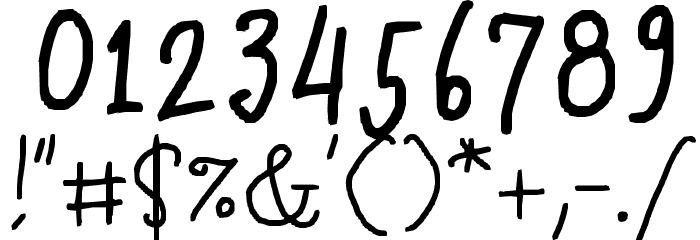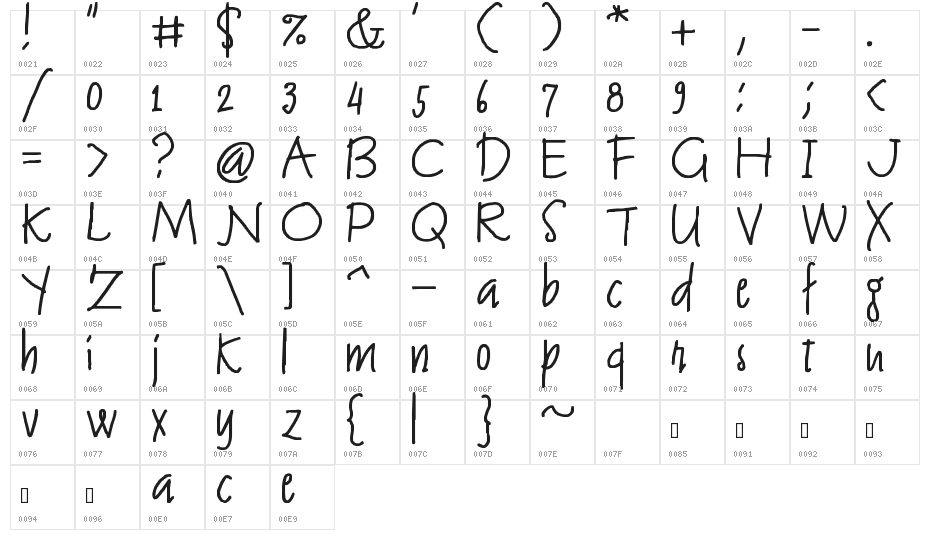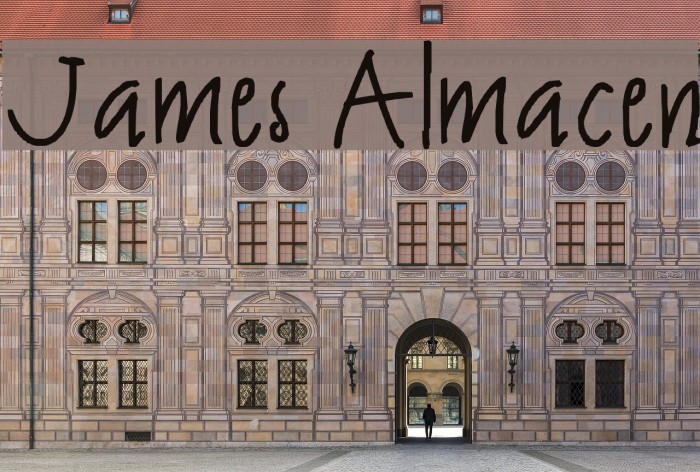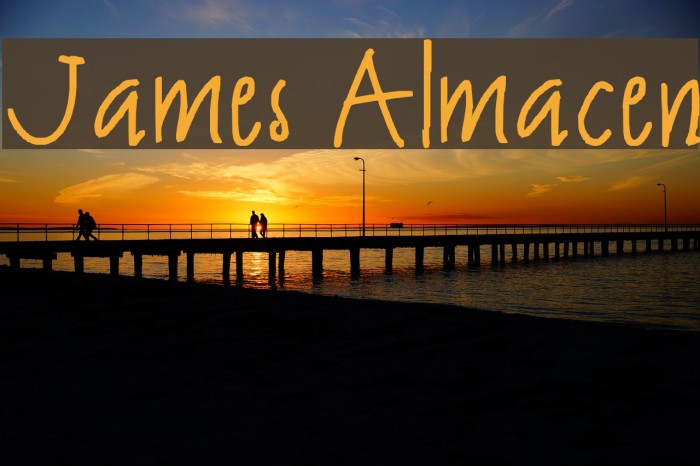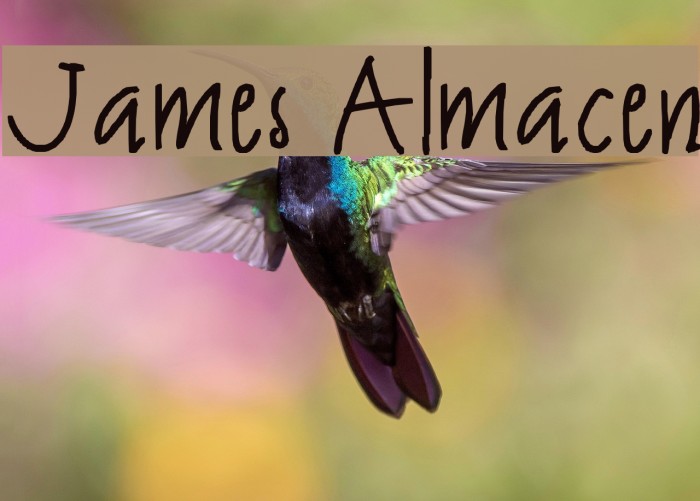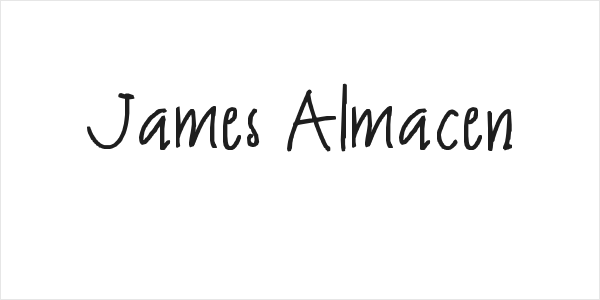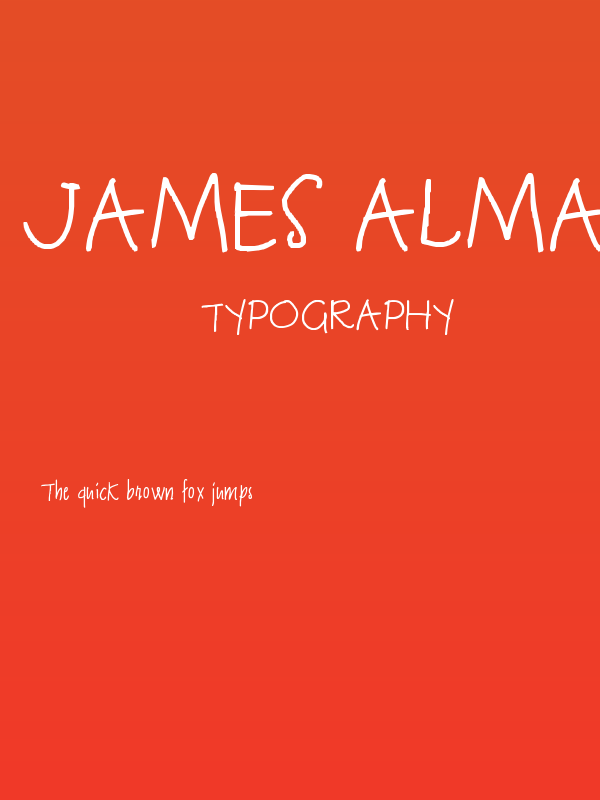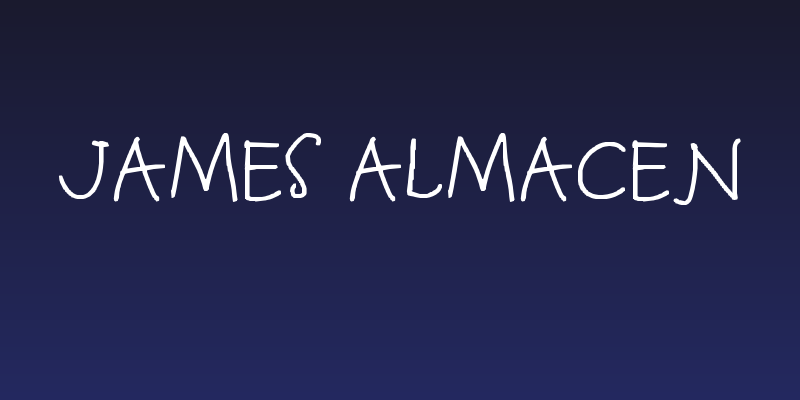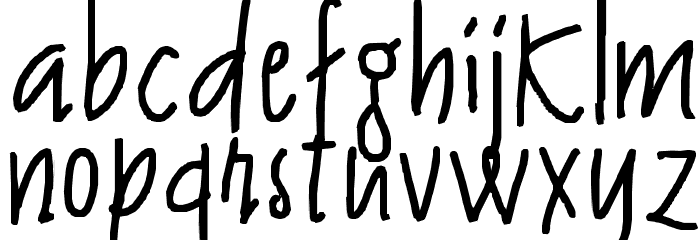
James Almacen Font
James Almacen Description
This font features a playful and casual handwritten style, characterized by its irregular and organic letterforms. The uppercase letters are tall and slightly narrow, with a whimsical touch that adds personality. The lowercase letters maintain a consistent flow, with some letters extending below the baseline, enhancing its informal appearance. The numbers are bold and easy to read, matching the overall playful aesthetic. Special characters are creatively designed, fitting seamlessly with the rest of the font. This font's unique style makes it suitable for projects that require a personal and approachable feel.
| Proposed Projects | Ideal for greeting cards, children's books, casual branding, and social media graphics. |